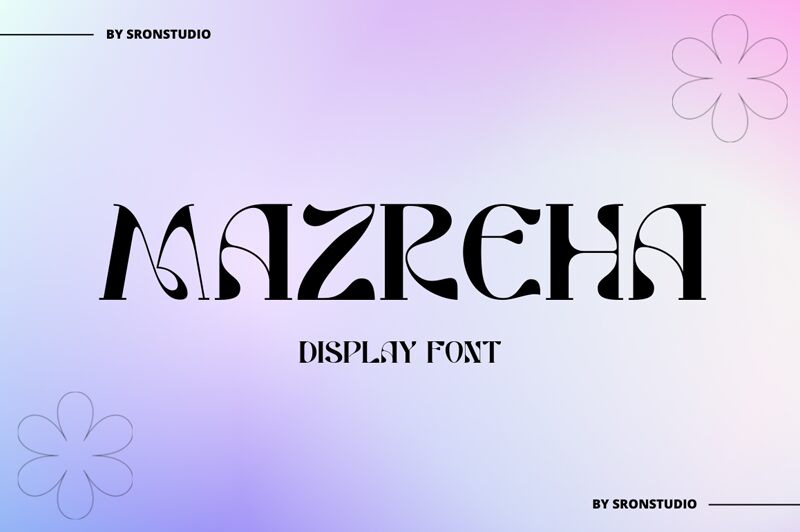
MAZREHA
Mazreha font is a modern display typeface created by Sronstudio. It exhibits ornate, decorative designs with an intricate touch. The letters carry an artistic flair that gives this handcrafted font its special characteristics which also combine it with a contemporary feel.
The free display font suits pretty much all fun design projects like t-shirt designs, comic book covers, branding projects, logos, and posters. Other ideas are greeting cards, business cards, quotes in social media or paper prints, product packaging (inner or outer), and anywhere else.